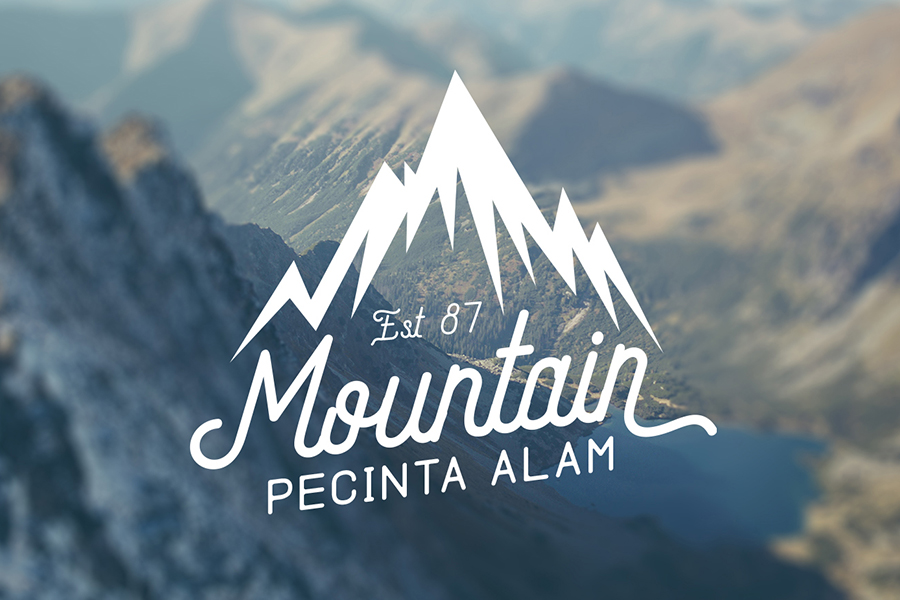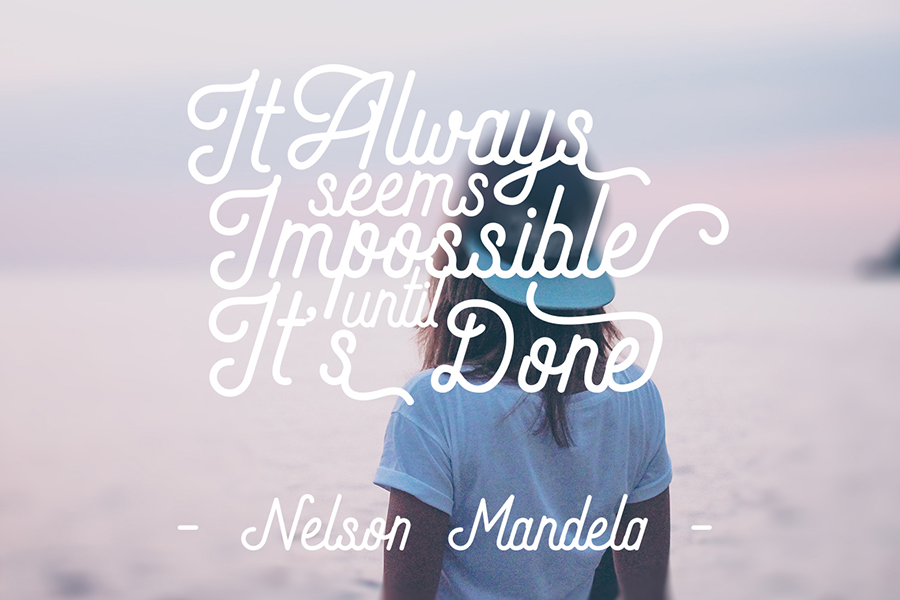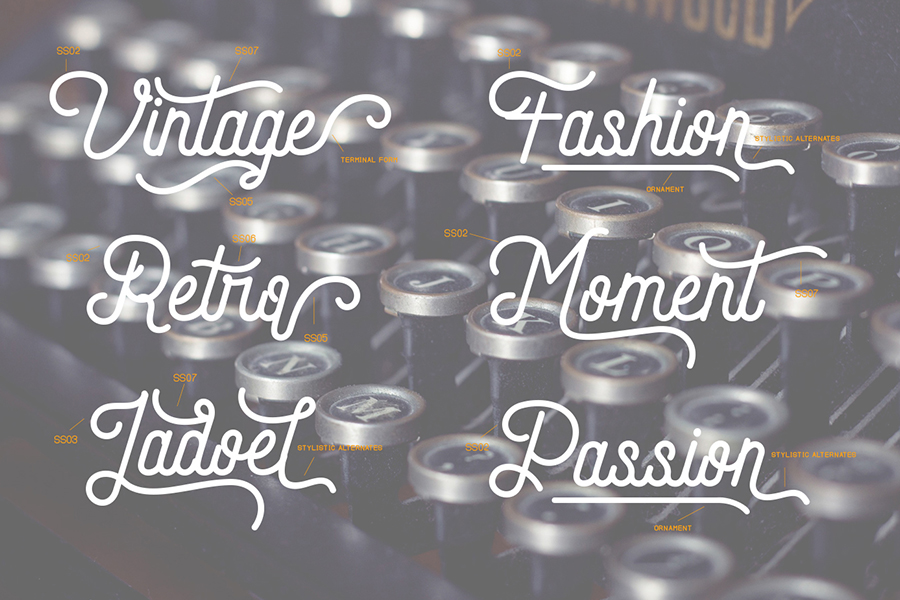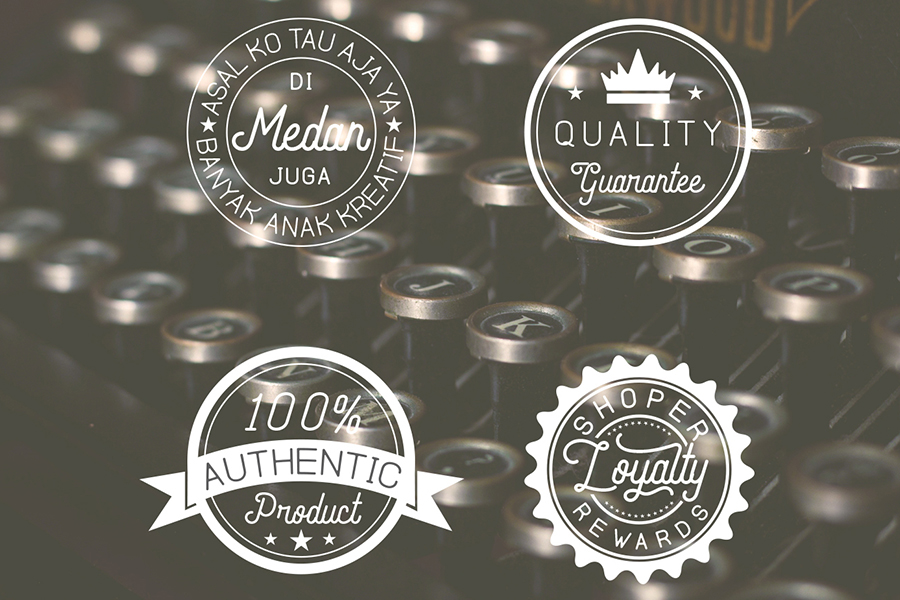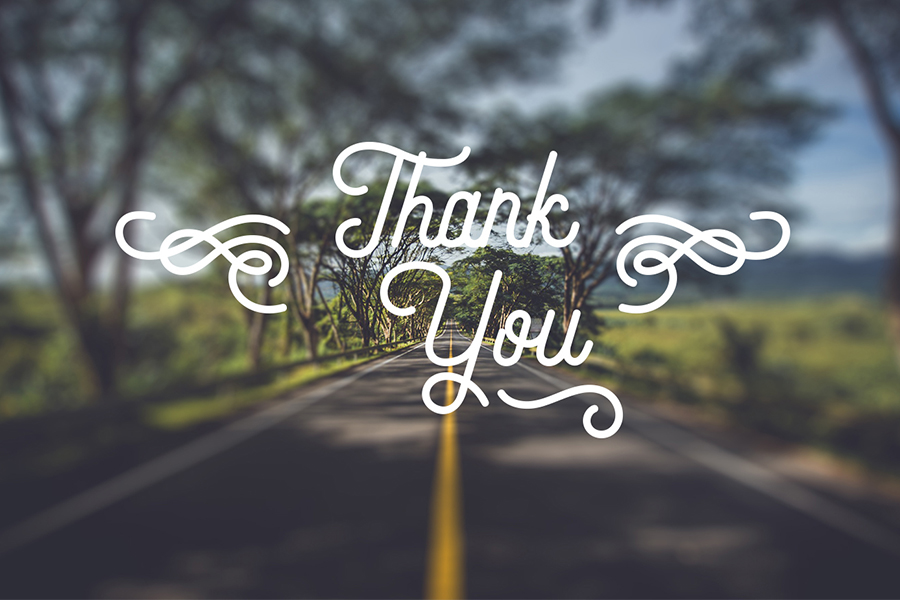
Andara Script Free Demo
Andara Script Free Demo is manual lettering with type soft and sans touch. These two font scripts and sans is a great combination for any product and business. So, Andara will be great for vintage design, classic design, photography, and branding design as well. This free design resource is free for both personal and commercial purposes, so download now and have fun!